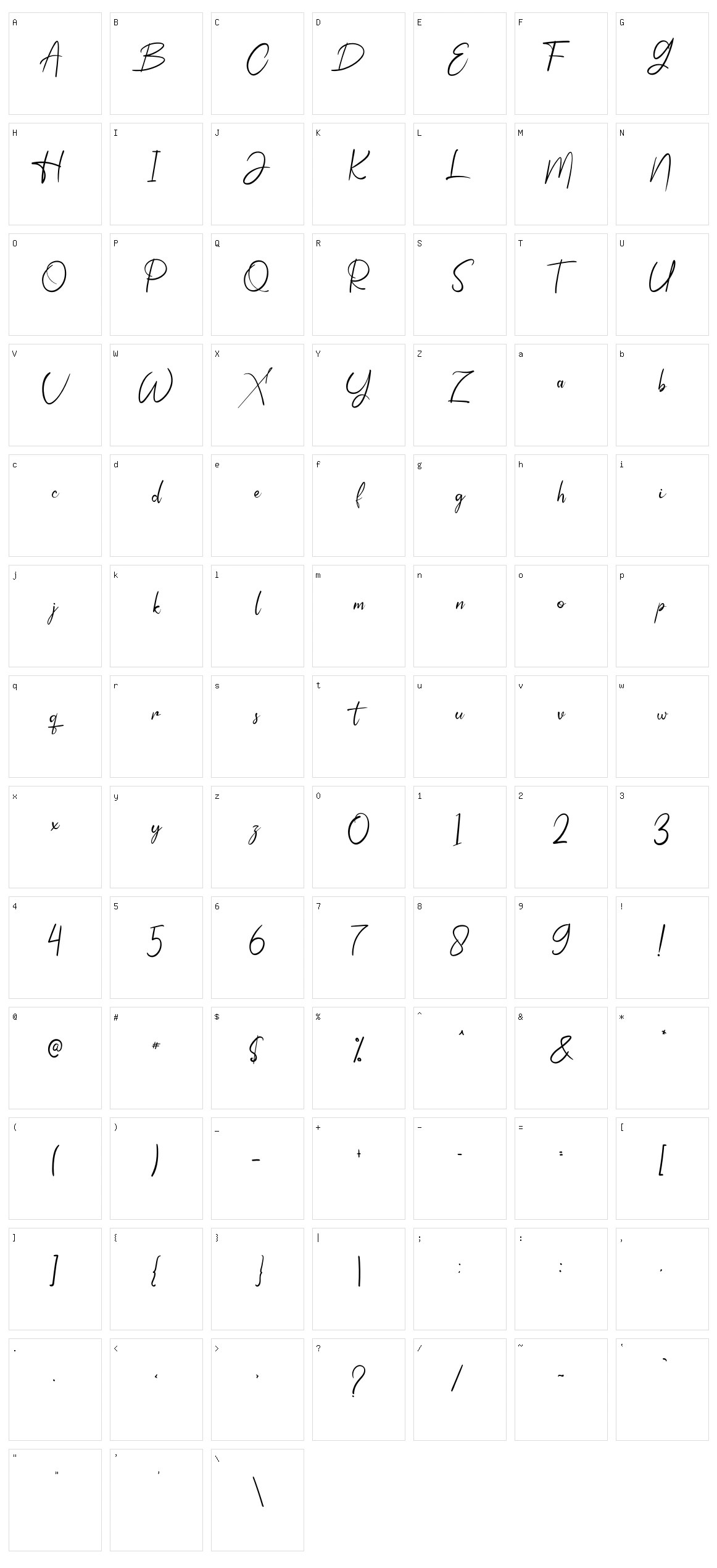
The free font Beautiful Lenttering is carefully designed by Kateeng Ciu, showcasing a thoughtful balance of creativity and usability and falls under the Script font style. When you download the ZIP file, it contains only 55.6 KB of font files, making it lightweight and quick to download. Please review the license details below to understand permitted usage and distribution rights. If license information is not available, we recommend using this font for personal projects only or contacting the author directly for commercial usage permissions.